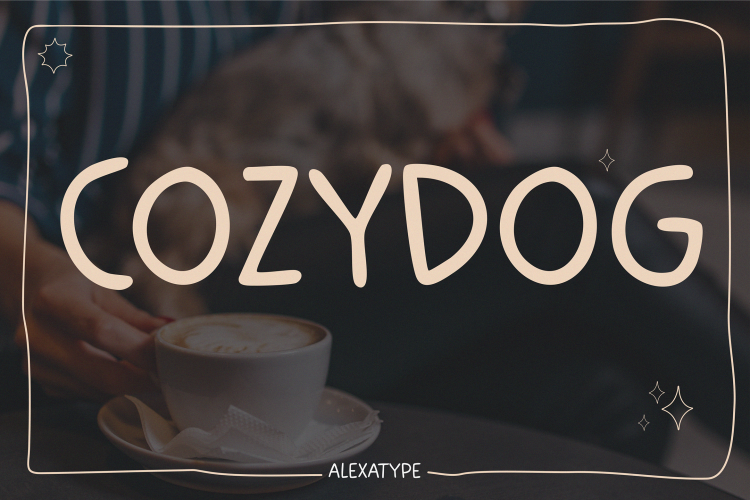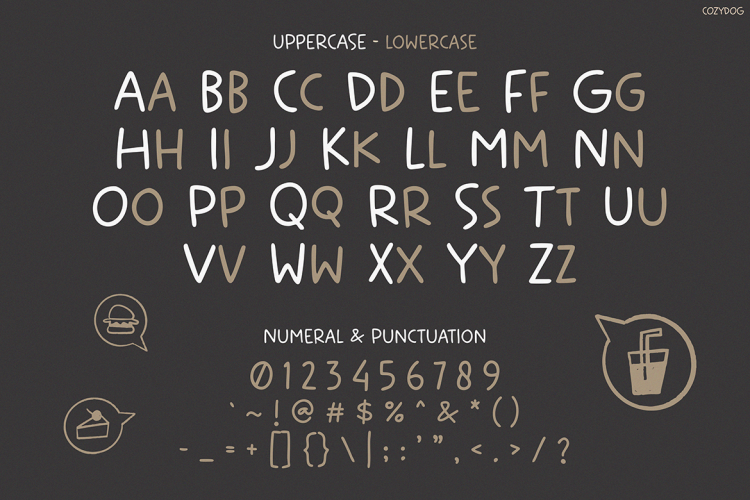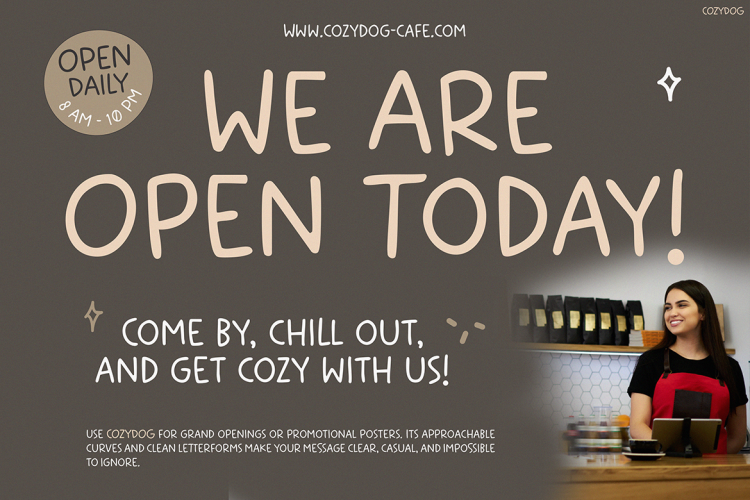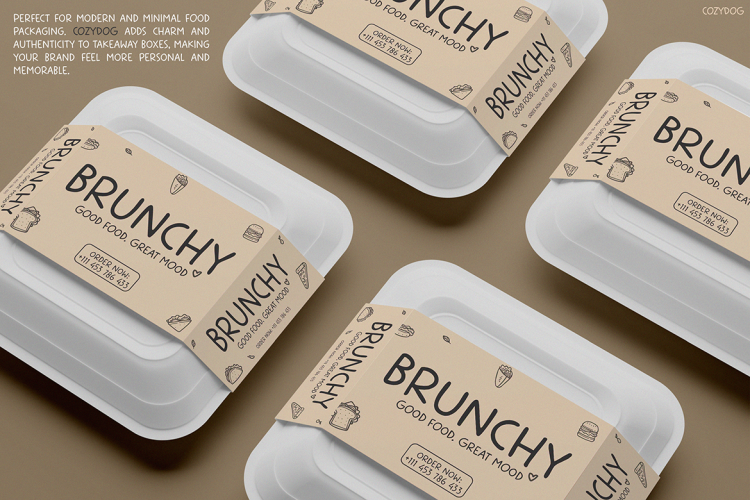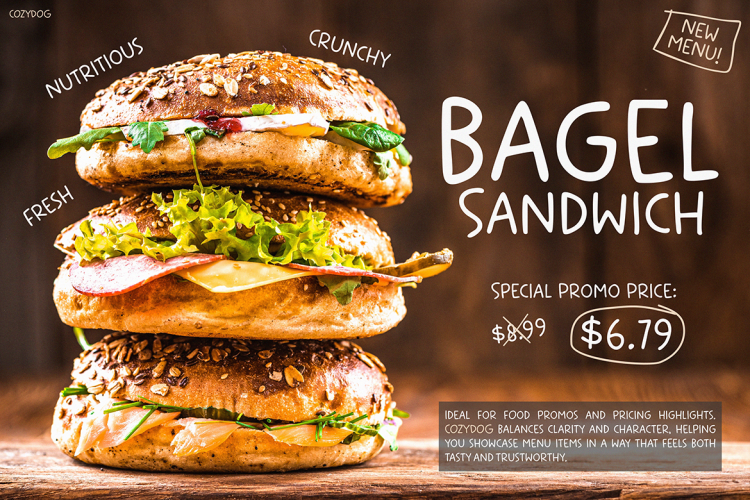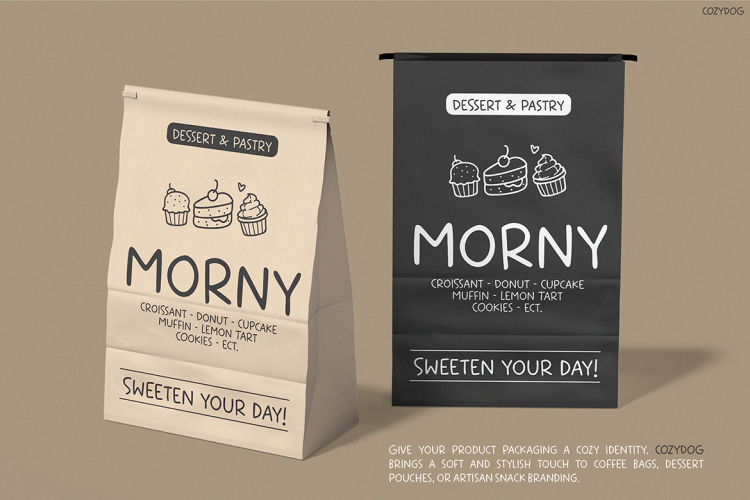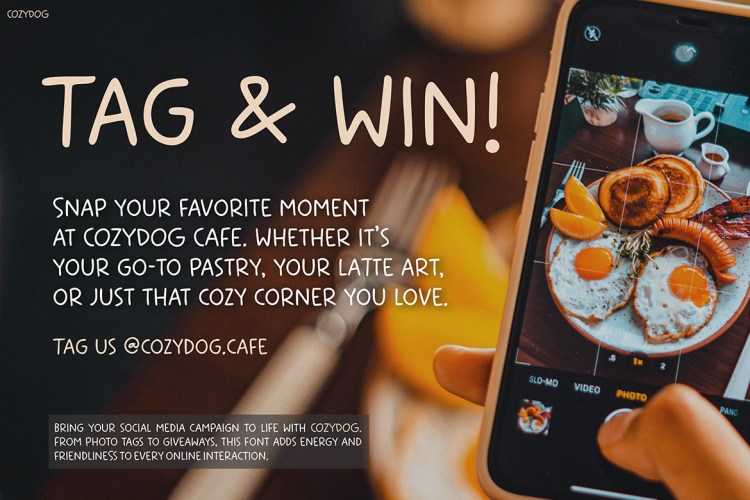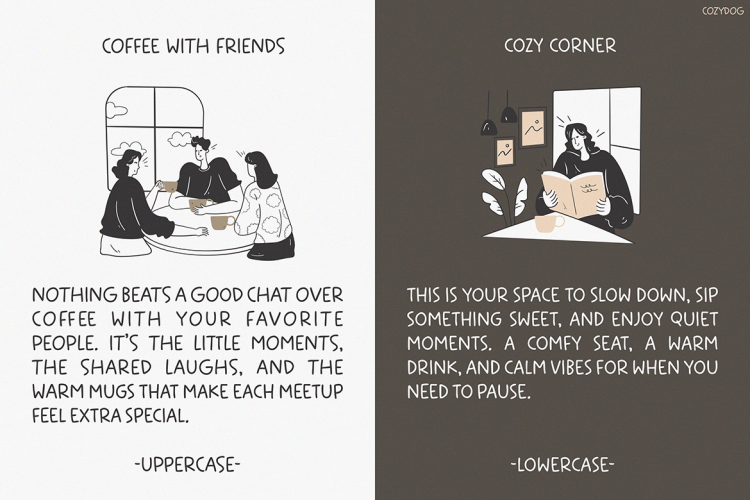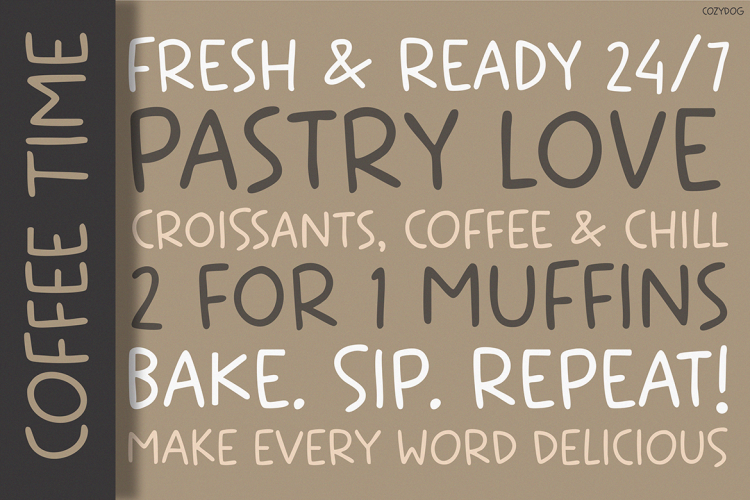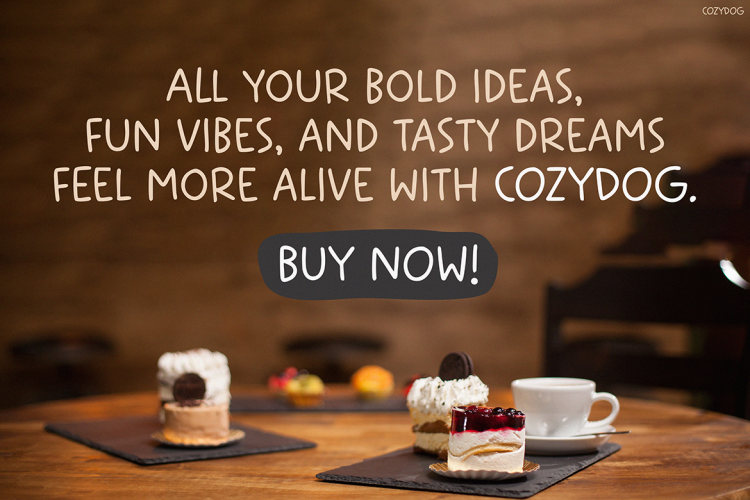
Handwriting Font Cozydog: A Whimsical Blend of Warmth and Personality
Handwriting Font Cozydog is a charming typeface that adds a personal touch to your design projects. Its playful strokes and natural flow create a warm, handwritten look. The font stands out with its soft curves, organic shapes, and friendly appearanceโbringing a sense of comfort and familiarity to every letterform. Itโs perfect for adding personality and heart to your work, whether youโre crafting a heartfelt quote or designing packaging that feels homey and authentic.
What makes Cozydog unique is its subtle imperfection, mimicking real handwriting while staying beautifully legible. The balance between style and simplicity gives it flexibility across various mediums. From logos to social media graphics, from labels to personal stationery, this font adapts effortlessly while maintaining its friendly tone. Itโs not just a typefaceโitโs a storyteller that brings human warmth to your message.
Handwriting Font Cozydog is ideal for creatives, entrepreneurs, and brand owners who want their designs to feel more approachable. Graphic designers will find it great for playful branding, while social media managers can use it to create visually engaging and unique content. It’s especially effective for quote graphics, lifestyle product packaging, wedding invitations, and Instagram story templates.
Crafters and handmade shop owners will love how the font aligns with cozy, heartfelt aesthetics. Itโs also a sweet match for children’s projects, pet-related content, and even journaling tools. If you’re building a brand with a warm, human vibe, Cozydog helps express that beautifully.